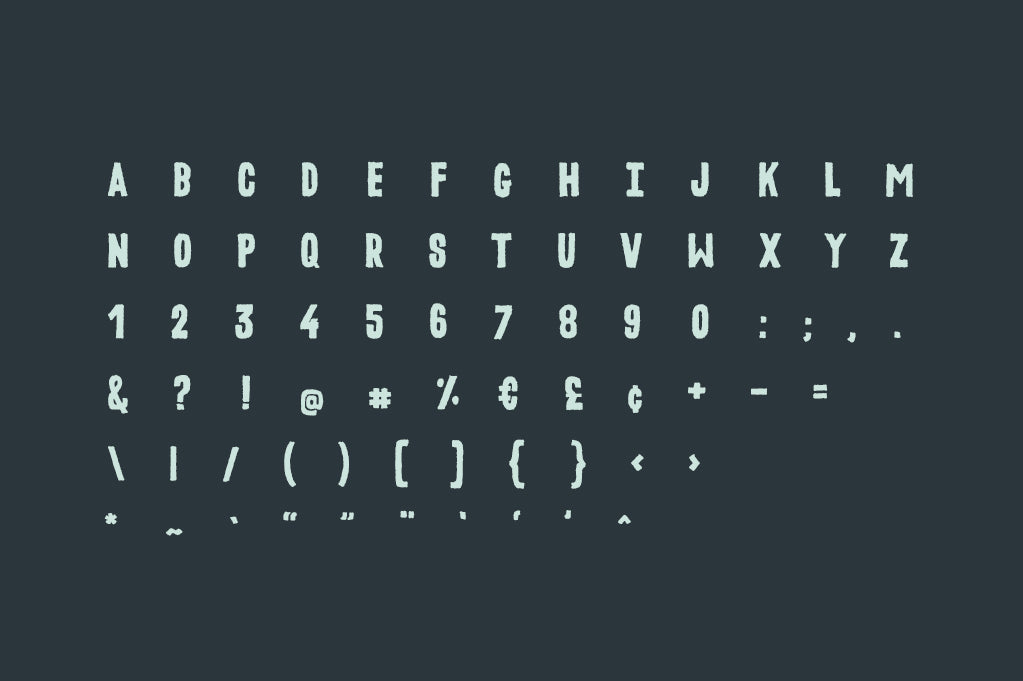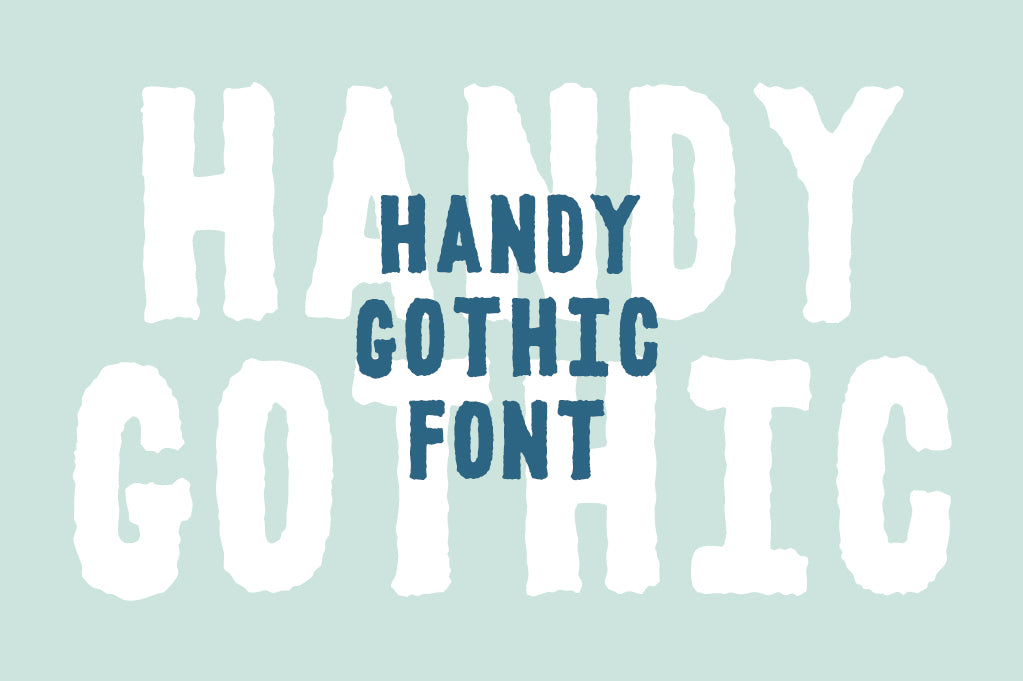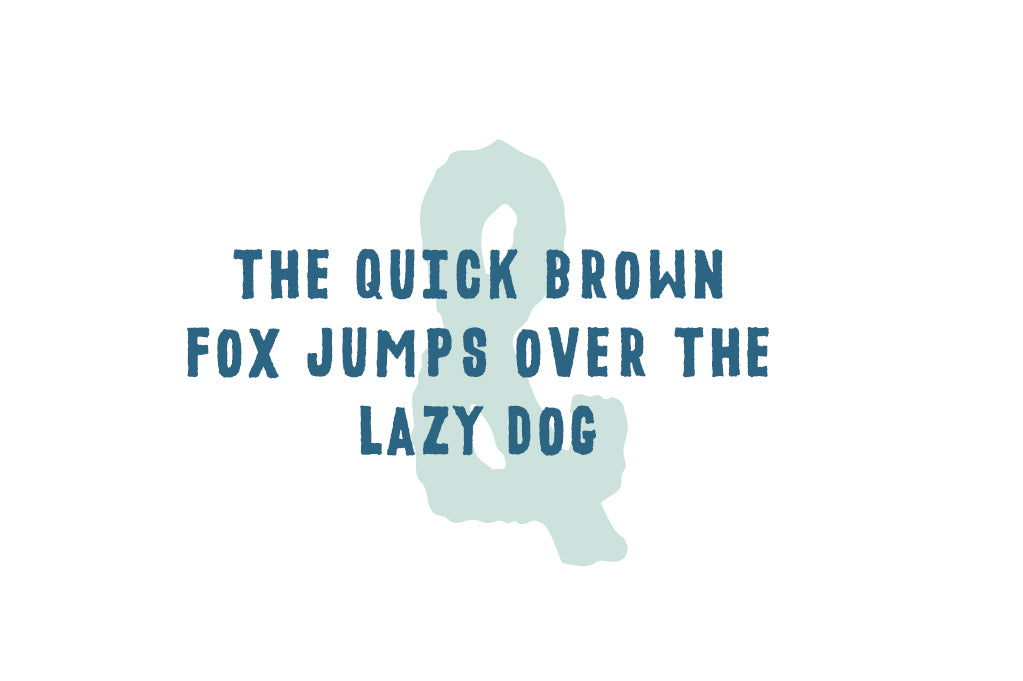
Handy Gothic Font
Presenting Handy Gothic, a bold hand lettered display font.
With its heavy weight, this sans-serif font is perfect for a high impact headline or logo, and delivers an authentic hand-lettered flavor.
Every single character on a U.S. keyboard is included (plus the British Pound symbol, the Euro symbol, and the U.S. cent symbol.) 72 characters in all.